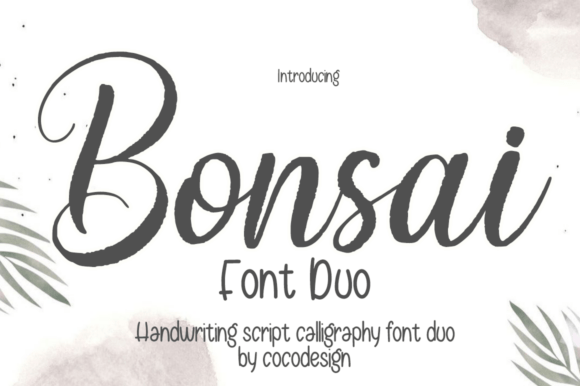
Meet Bonsai: The Enchanting Duo Font That’s About to Elevate Your Designs
I’ll never forget the summer I spent struggling to find the perfect font for a client’s children’s event invitation. The design needed to be vibrant, playful, and utterly captivating. I scoured the internet, tried out countless fonts, but nothing seemed quite right. That was until I stumbled upon Bonsai, a delightful duo font that instantly breathed life into my design. With its contemporary charisma and flair, Bonsai turned a mundane project into a showstopper. In this article, I’ll share my love for this enchanting font, its capabilities, and how you can make the most of it in your designs.
An Honest Review of Bonsai Font
What I Love About Bonsai ✨
• ✅ Versatility: Bonsai is a duo font that works beautifully both separately and together, making it perfect for a wide range of projects.
• ✅ Vibrant and Playful: This font embodies the refreshing vibes of summer, adding an overwhelming allure to designs.
• ✅ Easy to Read: Despite its playful nature, Bonsai remains clear and easy to read, even at smaller sizes.
• ✅ OpenType Features: Bonsai comes with a range of OpenType features, including glyphs and stylistic alternates, allowing for extensive customization.
While Bonsai is an exceptional font, there are a few minor considerations to keep in mind:
• 🤔 Limited Formality: Bonsai’s playful nature might not make it the best choice for very formal or corporate designs.
• 🤔 Requires Some Exploration To get the most out of Bonsai’s features, you might need to spend a bit of time exploring its OpenType capabilities.
The Story Behind Bonsai Font
Bonsai was created with the intention of capturing the essence of summer in a font. Its designer, inspired by the delicate balance and beauty of bonsai trees, aimed to bring a sense of playfulness and freshness to the world of typography. The result is a font duo that not only looks great but also feels vibrant and alive.
Q: What makes Bonsai font unique?
A: Bonsai’s uniqueness lies in its duo font structure, allowing for versatile use, and its vibrant, playful essence that captures the spirit of summer.
Q: Is Bonsai suitable for body text?
A: While Bonsai is primarily designed for display and headline purposes, its readability makes it possible to use for short body texts. For longer texts, a more traditional font might be more suitable.
Bonsai font is more than just a typeface; it’s a design companion that brings a spark of joy and creativity to any project. Whether you’re working on a children’s event, a summer-themed design, or simply looking to add a playful touch to your creations, Bonsai is sure to become an invaluable asset in your design toolkit.